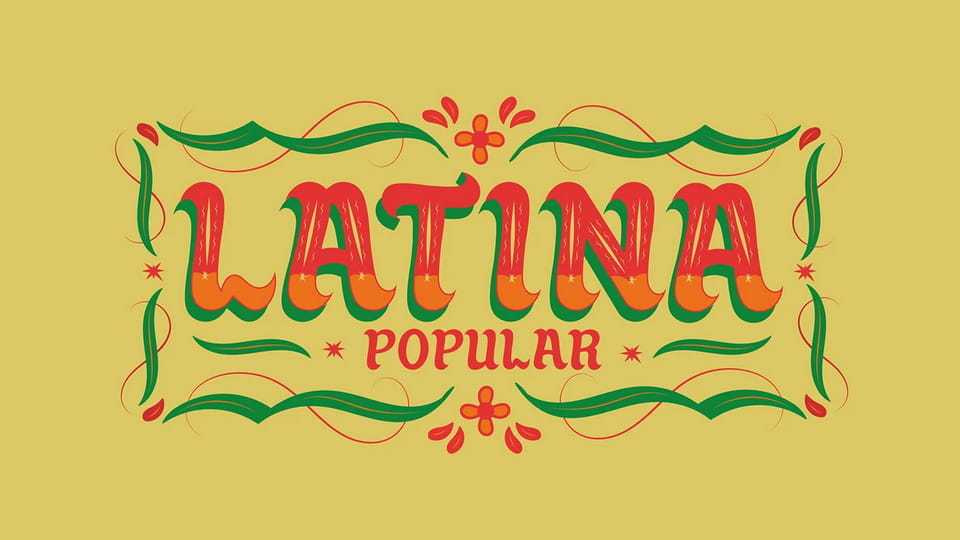
Download Latina Popular font, a typeface that celebrates the richness of Latin American typographic culture, drawing inspiration from Peruvian vernacular signage, popularly known as Chicha.
Designer: Rafael Castro